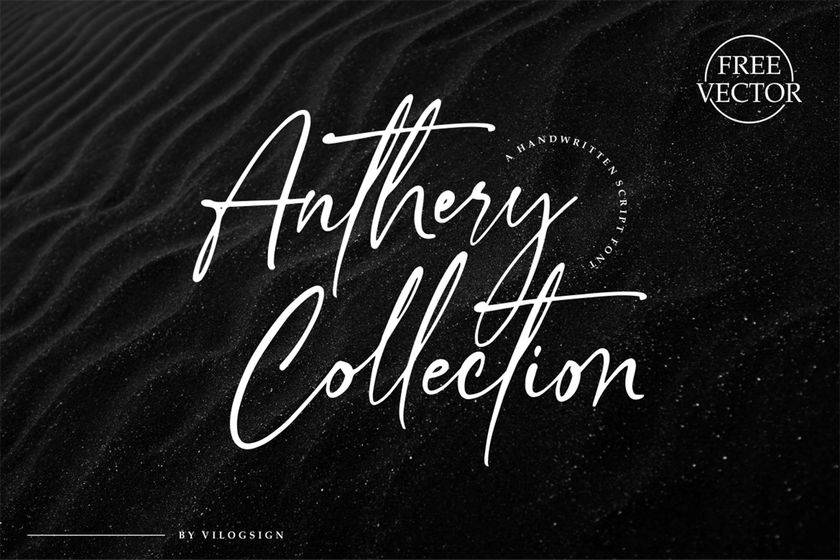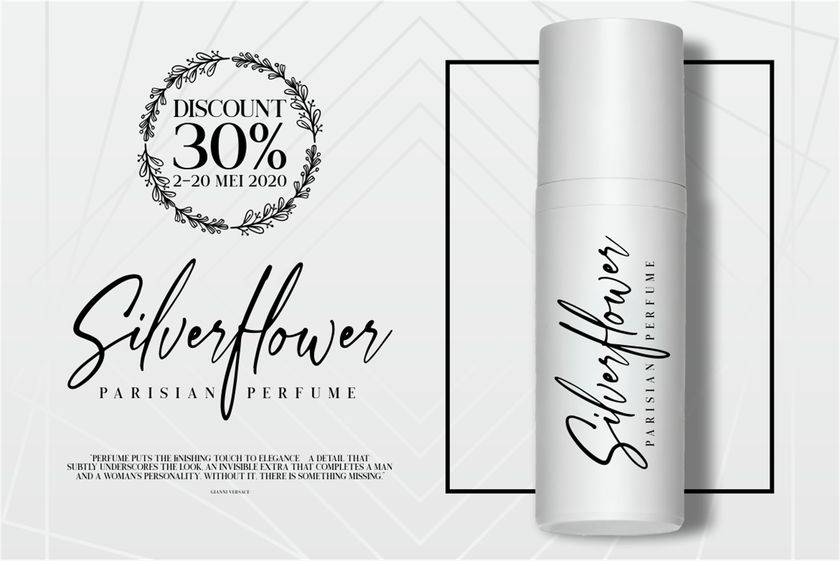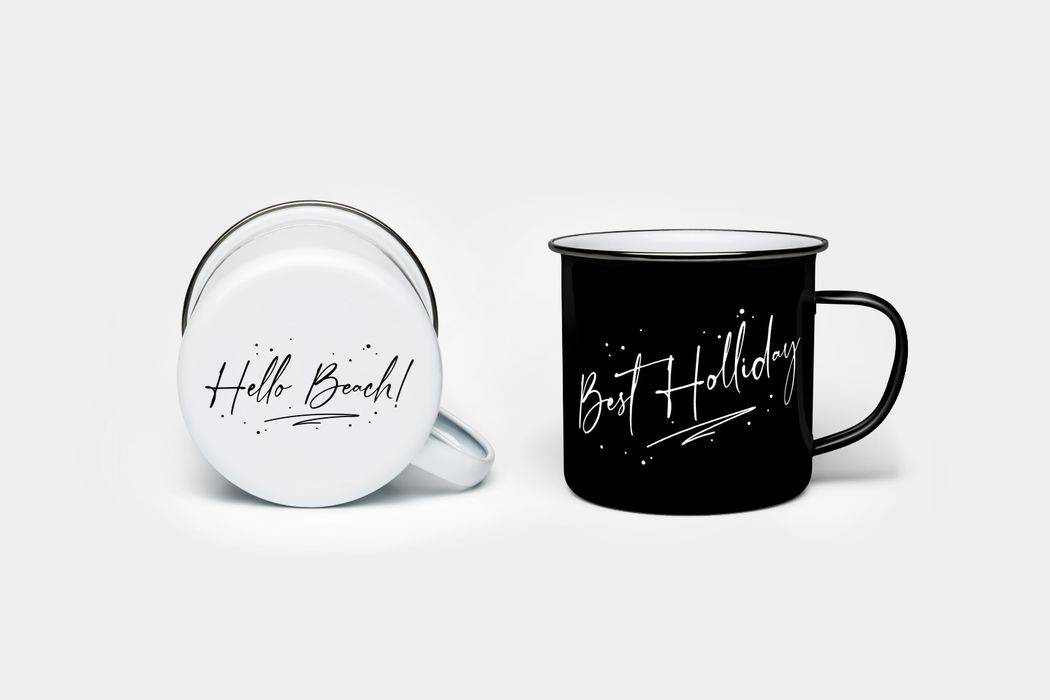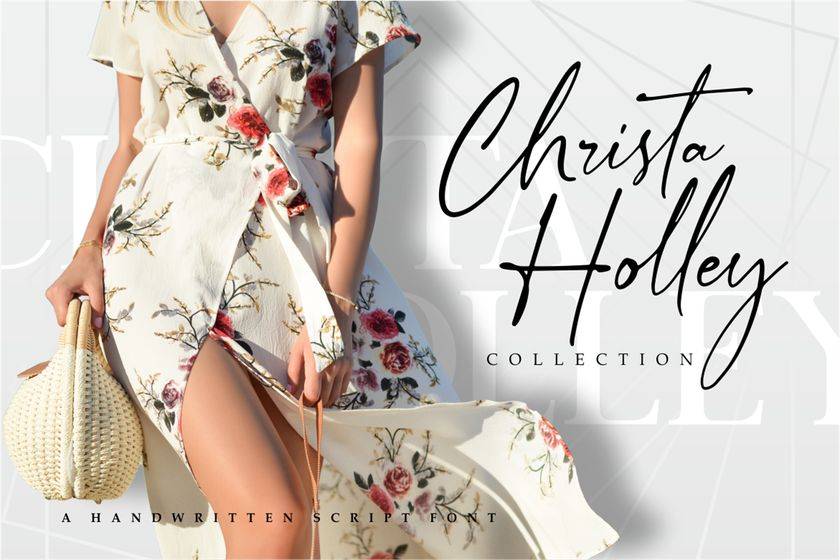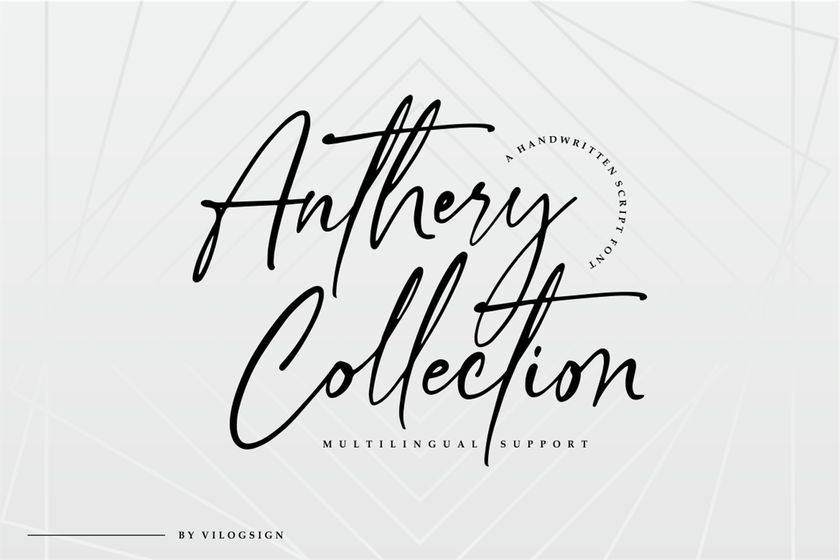
Anthery Collection is a delicate script font with a natural, handwritten feel, featuring slim, elegant strokes and a slightly slanted flow that adds a personal, artistic touch. Its light weight and fluid, calligraphic style make it perfect for invitations, branding, and creative projects seeking a refined yet approachable look. This font works well in contexts where a stylish, sophisticated, and intimate atmosphere is desired.
Anthery Collection Font
About Anthery Collection Font
| Font family | Anthery Collection Font |
| Designer | Vilogsign |